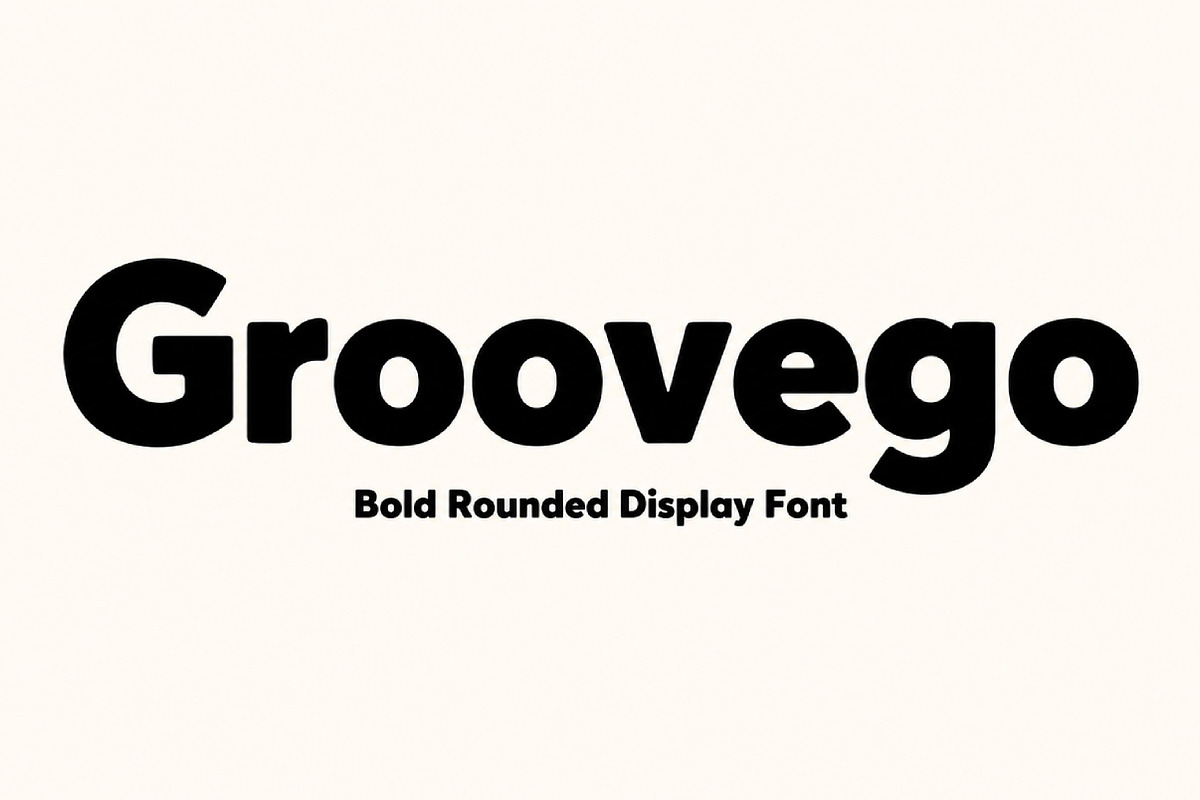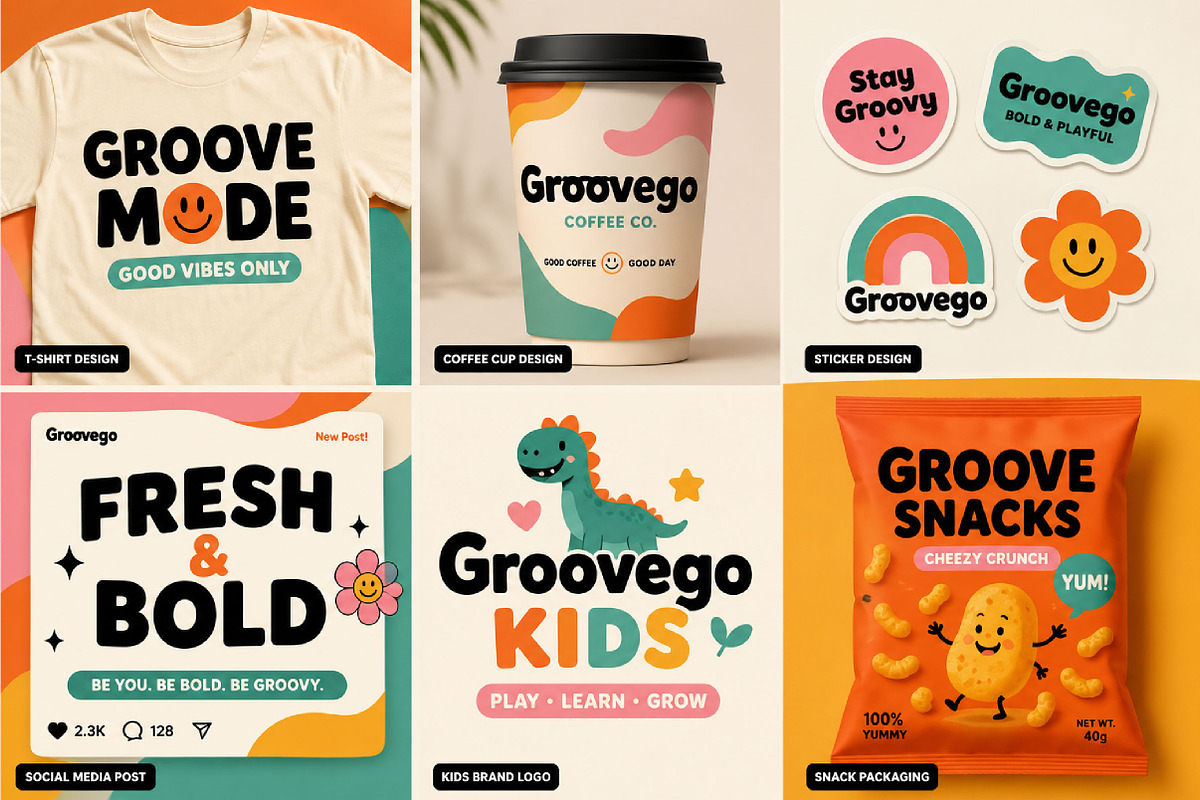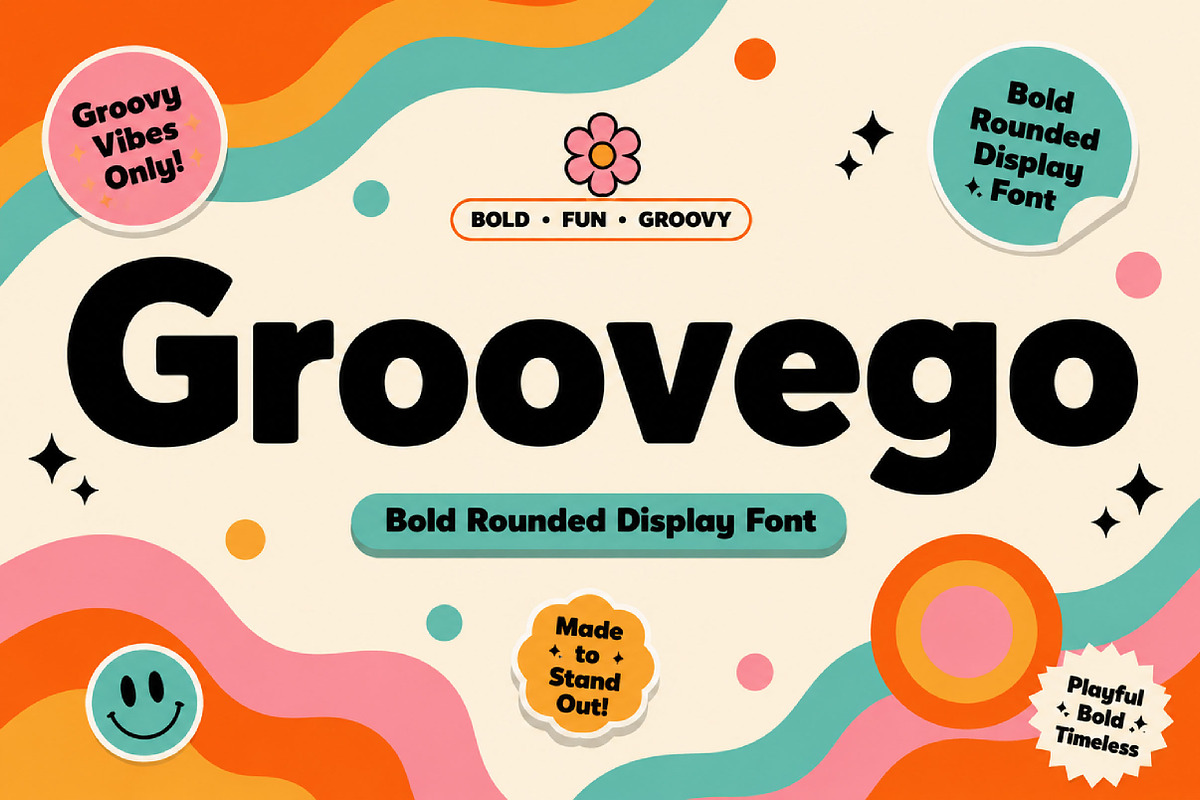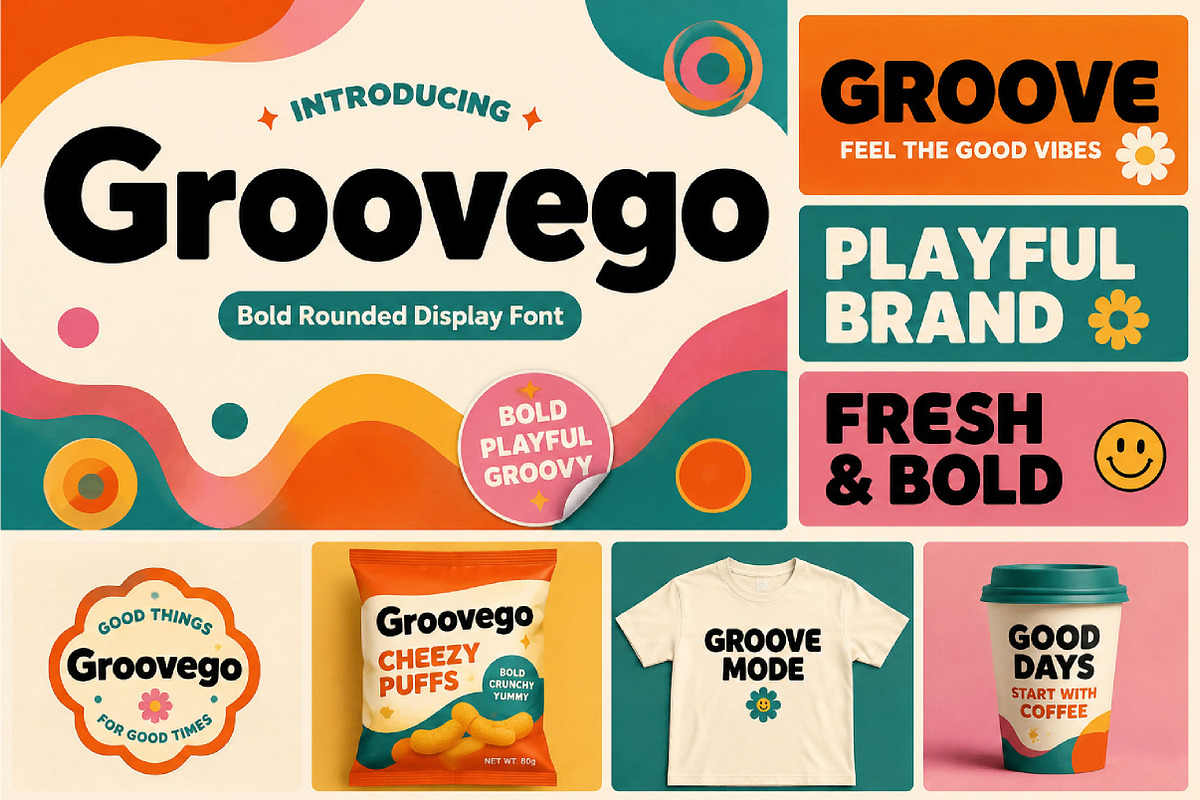
Groovego
Groovego – Bold Groovy Display Font
Groovego is a bold and playful groovy display font with retro-inspired curves, perfect for logos, posters, branding, packaging, apparel, and fun creative projects.
Groovego is a bold groovy display font designed to bring retro charm, playful energy, and strong visual impact to your typography. With its chunky letterforms, smooth curves, and funky personality, this font creates a confident and eye-catching look for modern creative designs.
Its fun and stylish appearance makes Groovego perfect for projects that need a cheerful retro vibe. Use it for posters, logos, branding, product packaging, apparel, stickers, social media graphics, event visuals, and statement headlines.
The thick display structure keeps it highly readable while the rounded groovy shapes add warmth and character. Groovego is ideal for both print and digital designs that need typography that feels bold, playful, and memorable.
Retro and groovy designs
Posters and headlines
Logos and branding
Product packaging
Apparel and merchandise
Stickers and labels
Event and festival visuals
Fun creative projects
Statement display typography
Uppercase letters
Lowercase letters
Bold groovy style
Chunky rounded letterforms
Playful retro appearance
Strong display design
Perfect for display use